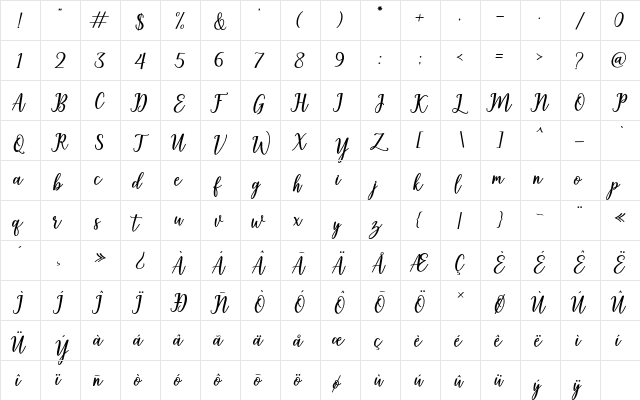
shelter Regular
| Designer | Kamaruddin_Amarlettering |
shelter is a composed and adaptable typeface that performs quietly and consistently across a wide range of design contexts.